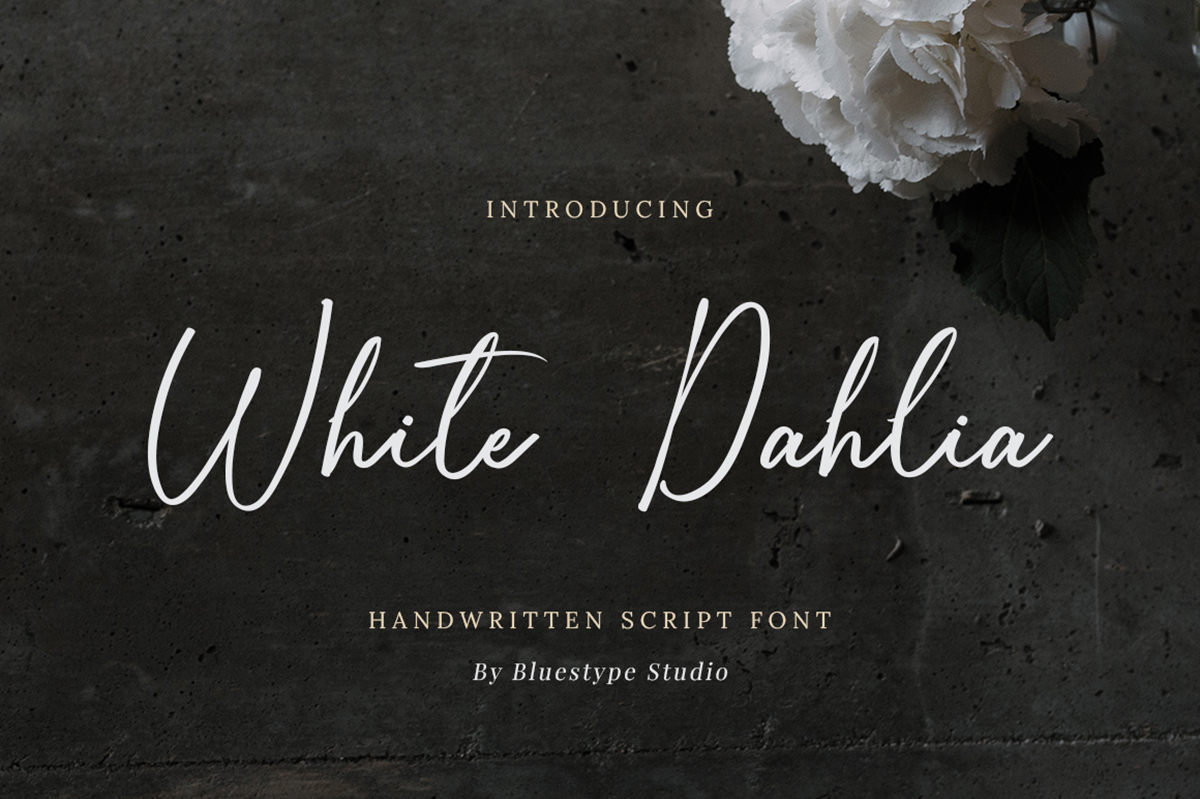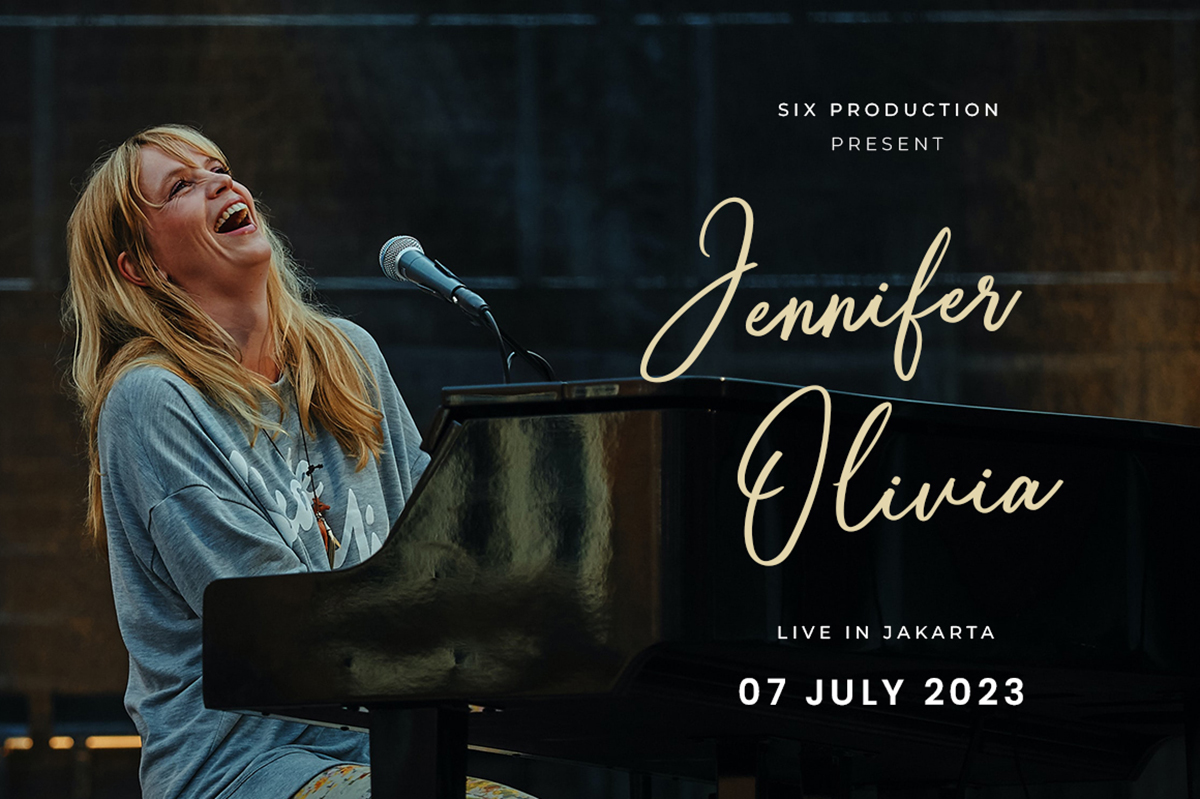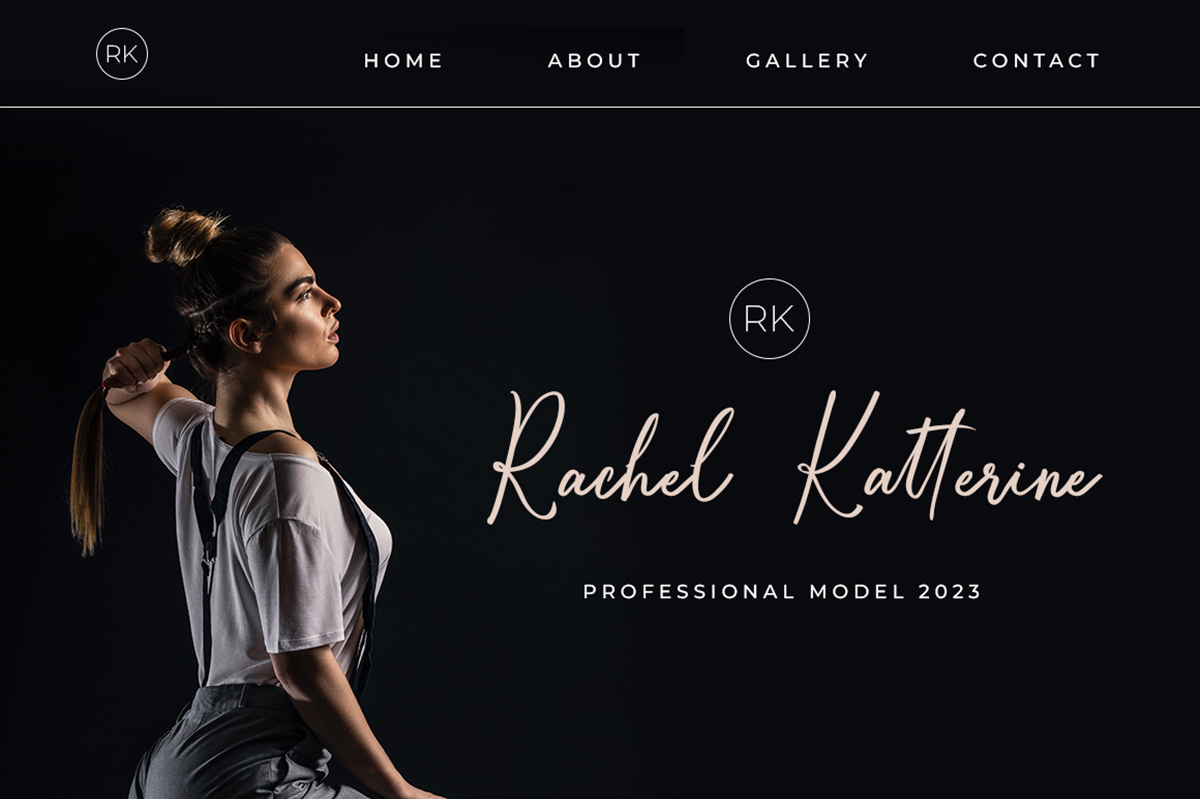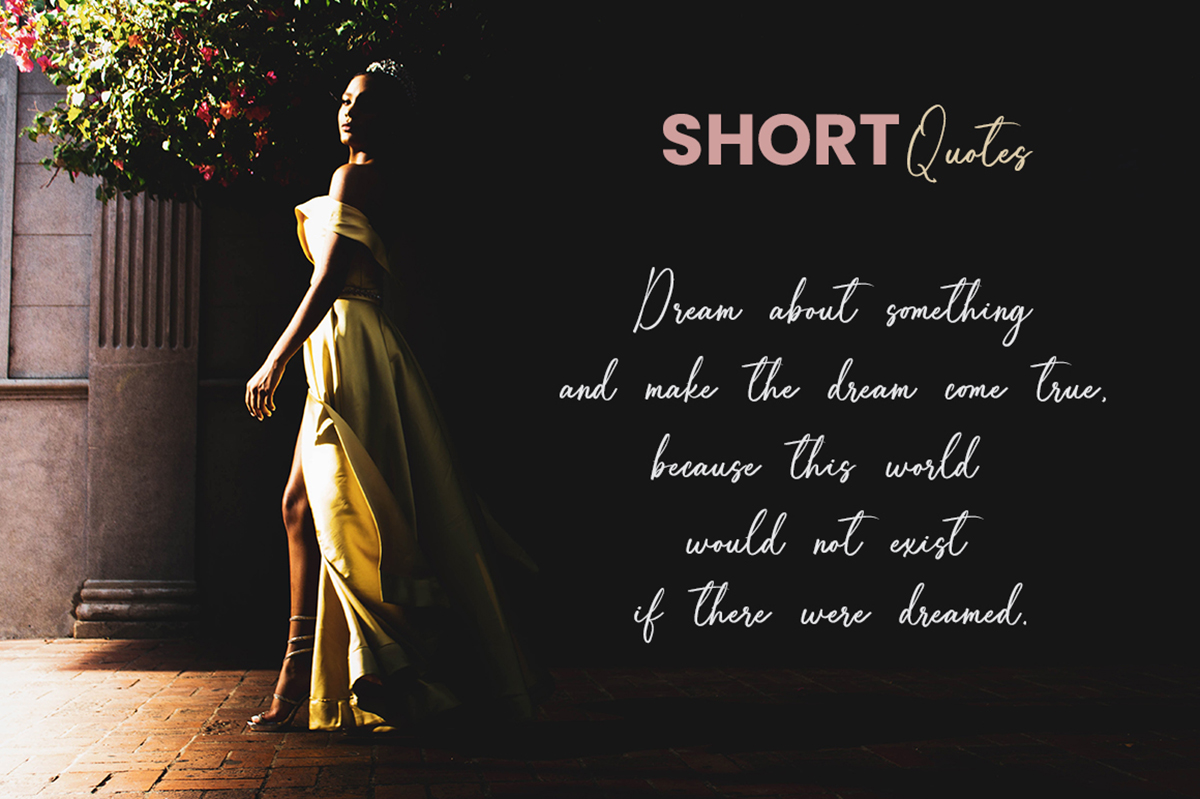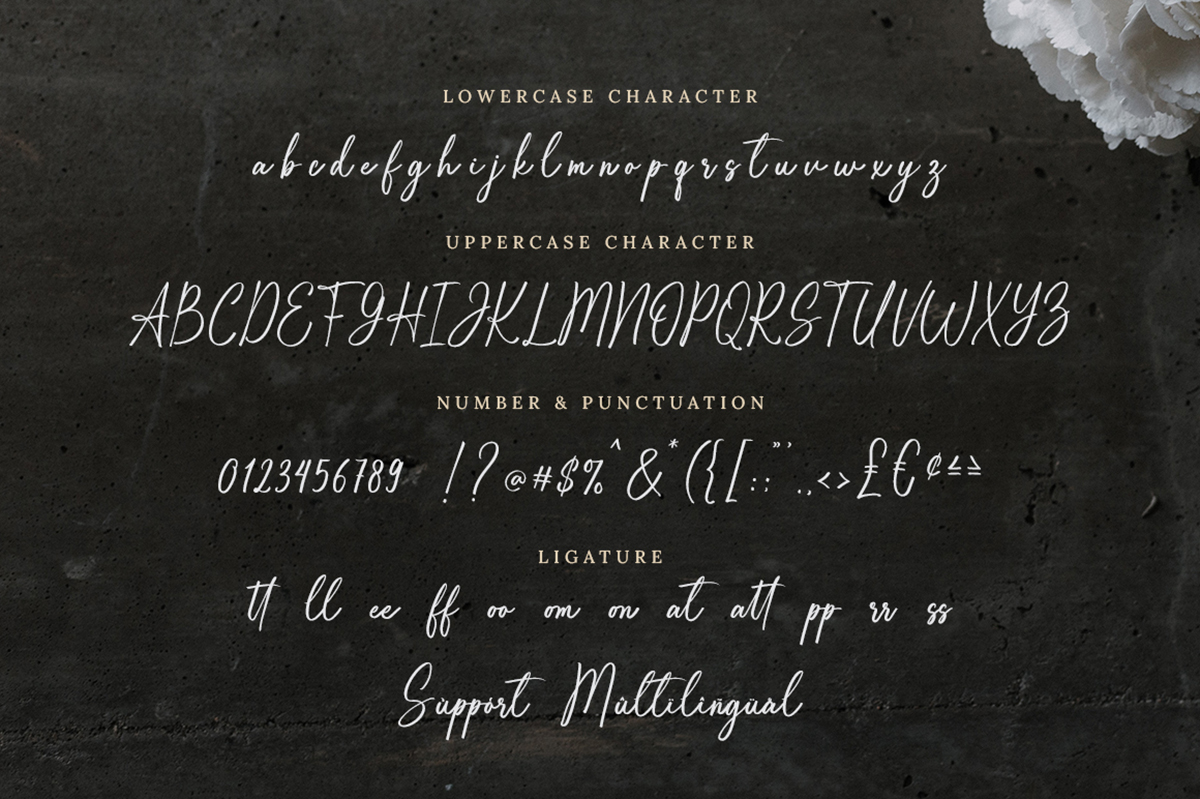
White Dahlia Free Font is a dazzling handwritten font. This versatile script font has beautiful shapes for use from greeting cards to headlines and more guaranteed to add a romantic feel to your next project. This free typeface was designed by a talented Bluestype Studio. If you like it don’t forget to check out the full version.